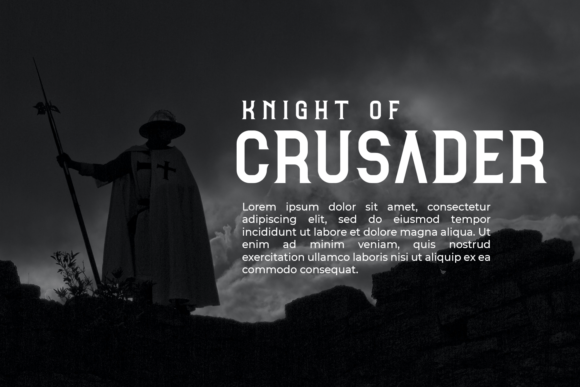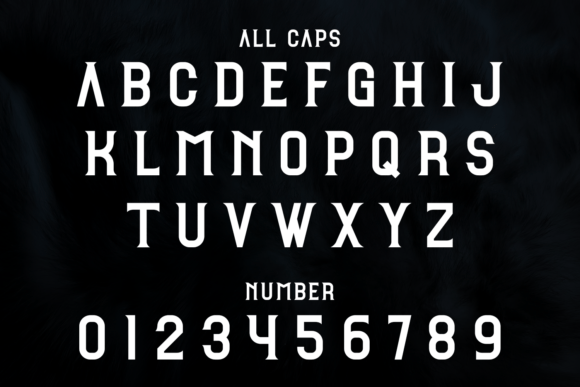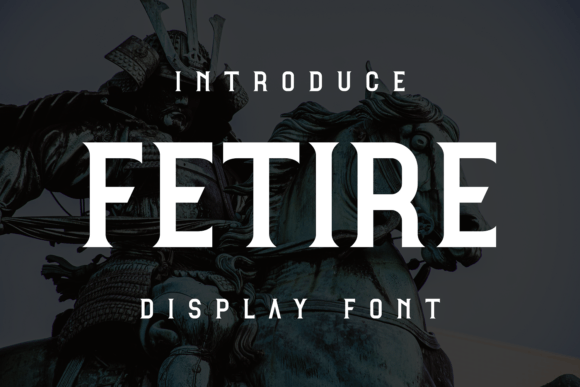
Introduction to Fetire Font
Fetire is a cool and unique display font.
This font is neatly crafted and highly detailed Whatever the topic, this font will be a wonderful asset to your font library, as it has the potential to enhance any creation.
Fetire Font offers exceptional quality and versatility, making it a valuable addition to your design toolkit. Whether you’re creating for personal projects or commercial use, Fetire Font delivers professional results.